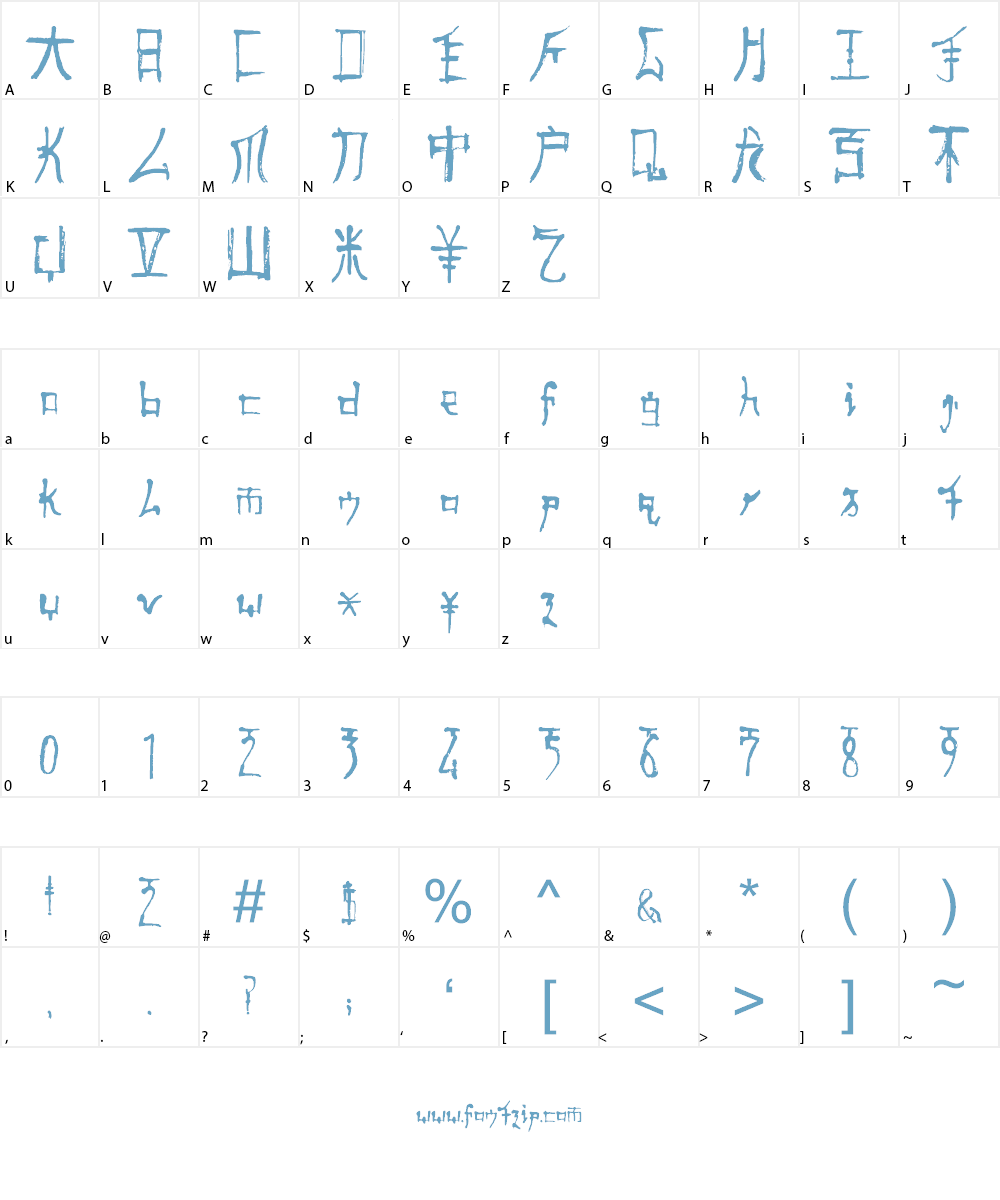
This font was inspired by Chinese characters. 99c will get you the Commercial Licence at https://www.creativefabrica.com/designer/shelley-2 Thank you!